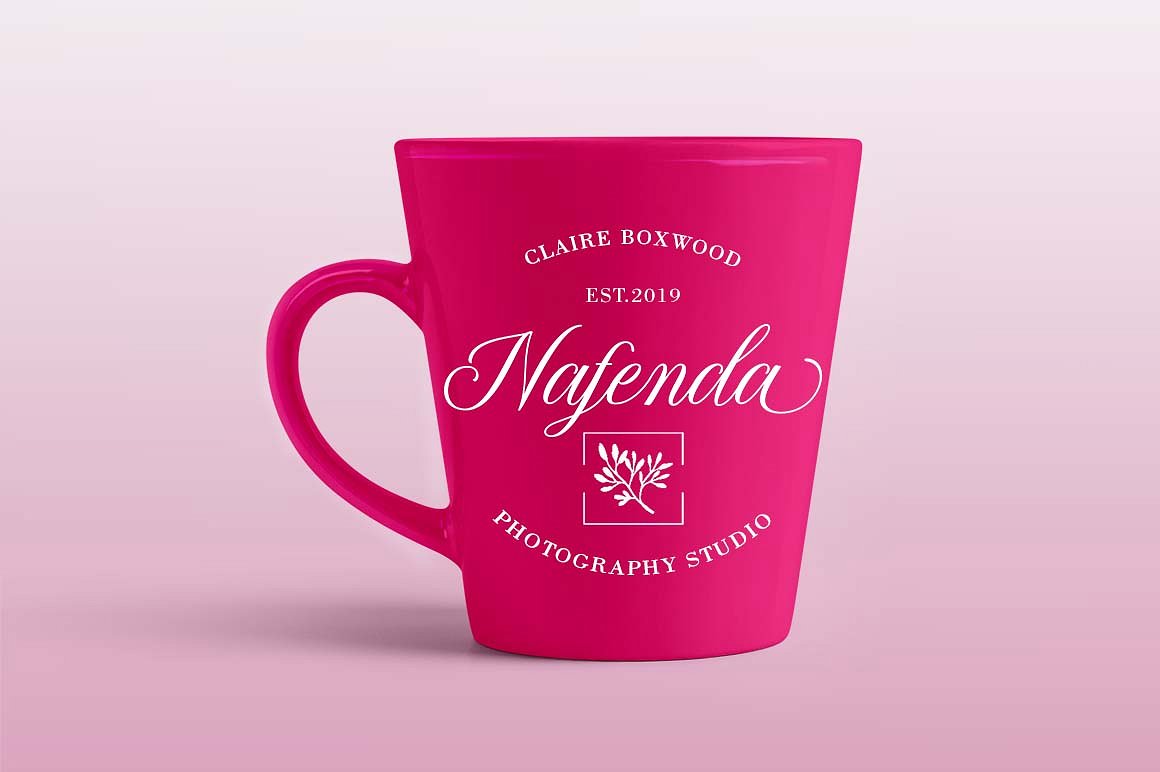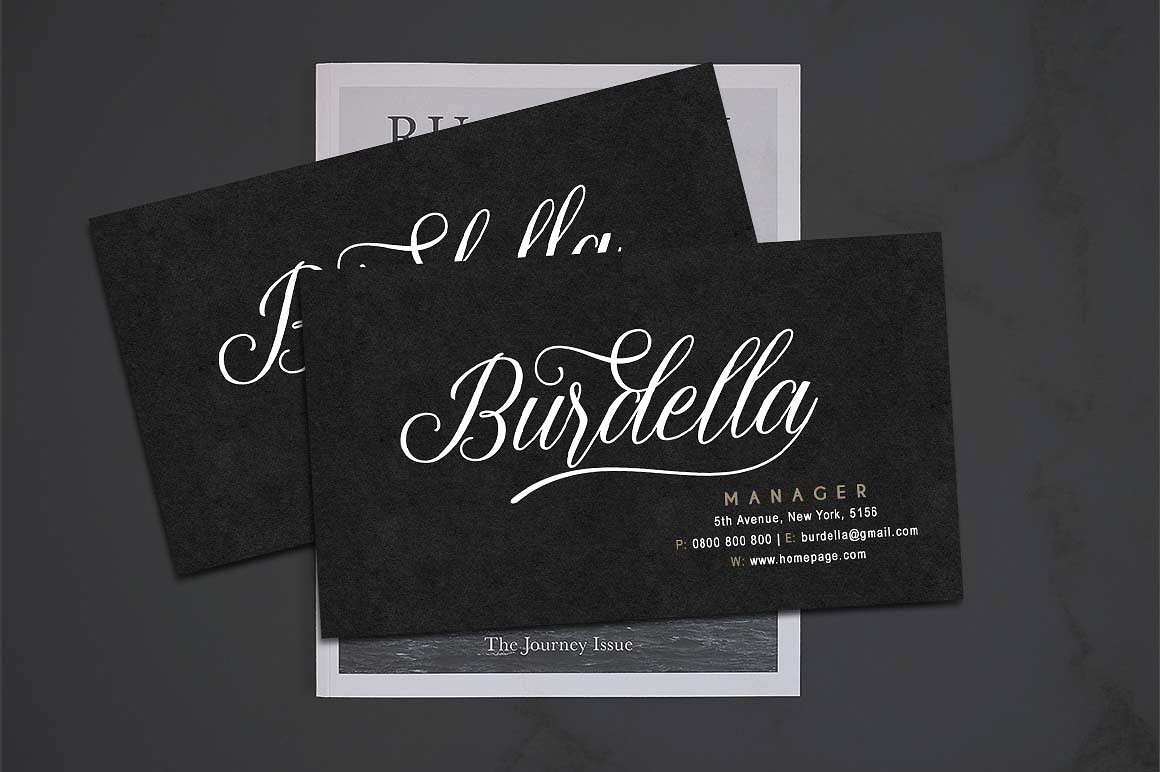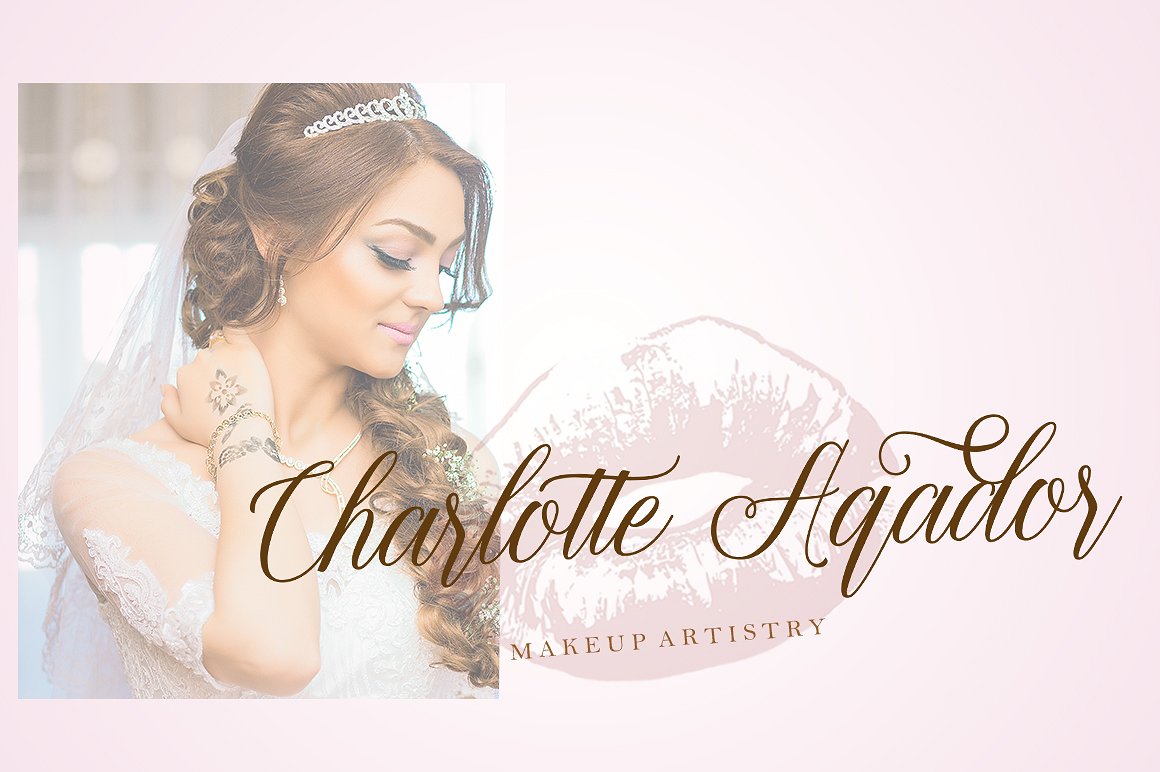
Thuressia Script Font
Thuressia – a new fresh handmade calligraphy font. This font is to complement your design needs in making amazing works. Thuressia is modern calligraphy design, including Regular. This font is casual and pretty with swashes. Can used for various purposes. such as logo, product packaging, wedding invitations, branding, headlines, signage, labels, signature, book covers, posters, quotes and more.